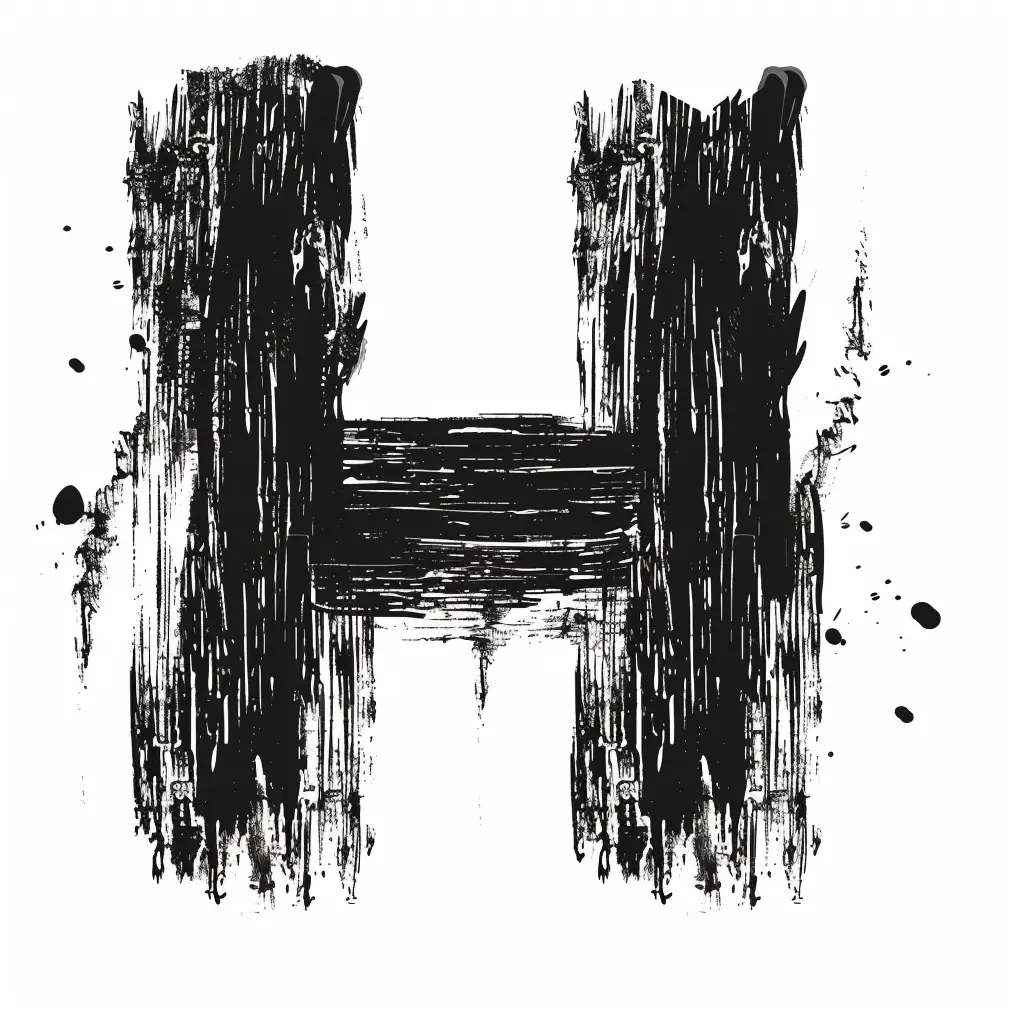
The image features a stylized letter "H" rendered in a rough, brushstroke-like black texture against a white background. The design incorporates uneven, textured strokes with splatters and drips, giving it a grungy, artistic appearance. The high-contrast black-and-white color scheme emphasizes the bold, expressive style of the letter.